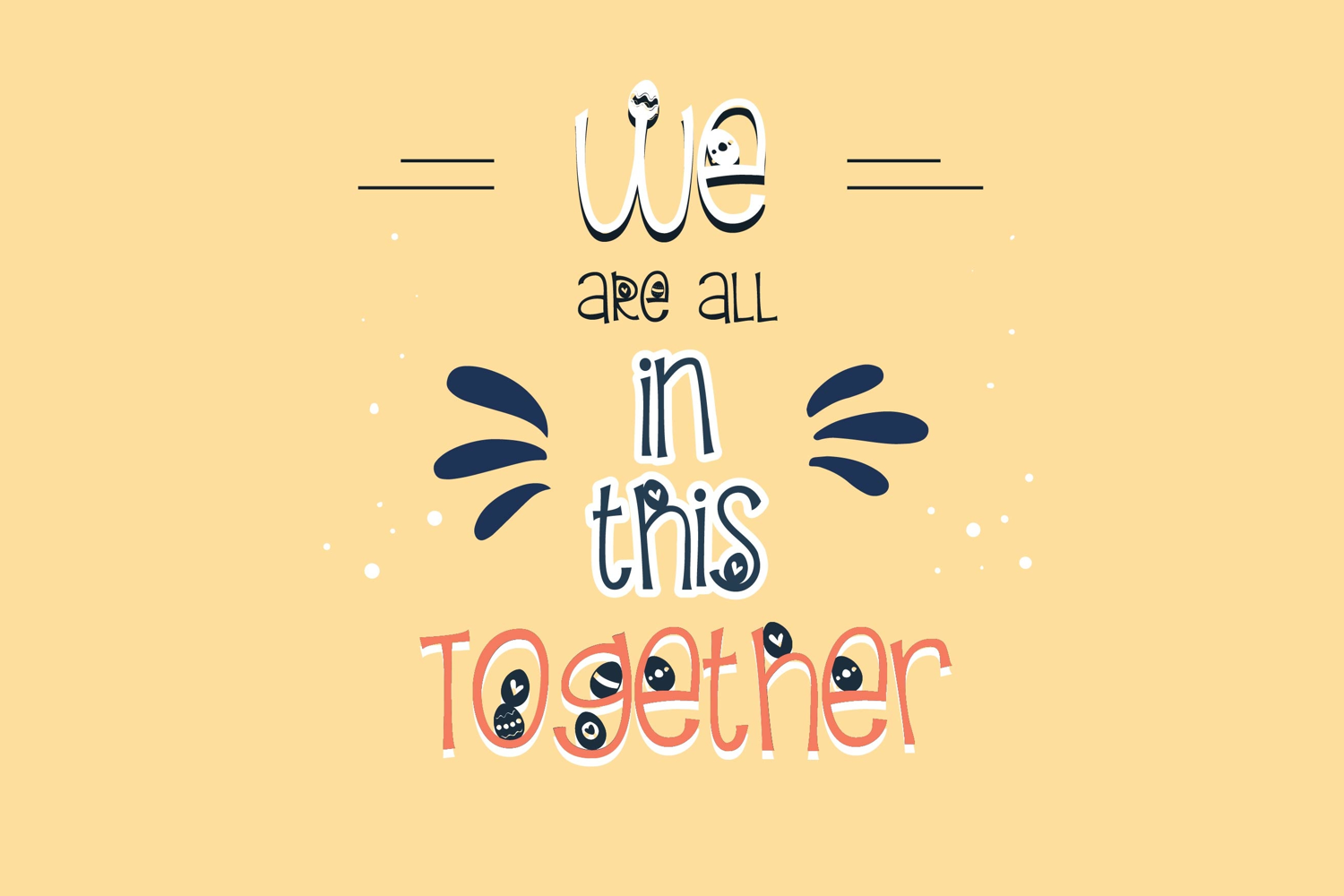
PN Firefly Egg Hunt
This hand-crafted font is a whimsical sans serif with adorable Easter Egg imagery throughout. When used with PN Firefly and layered, it creates a dual-color look.